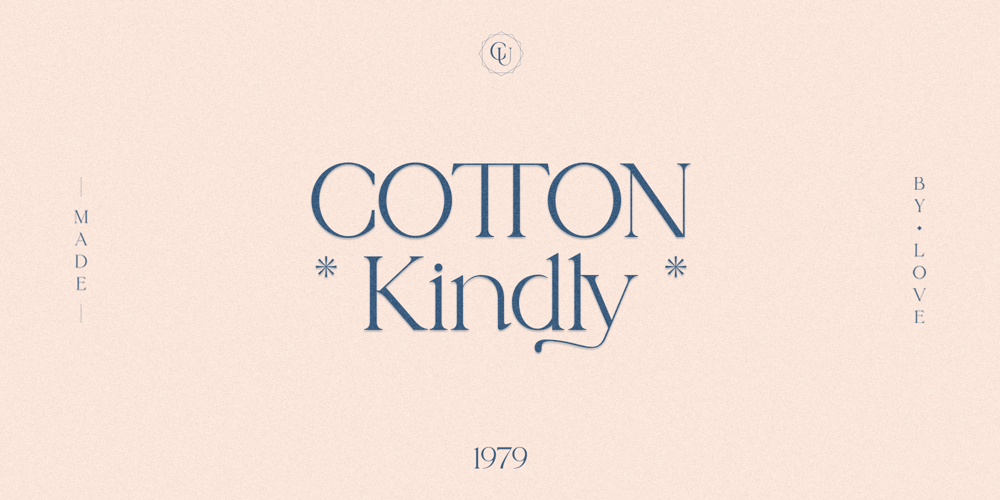
Cotton Kindly
Cotton Kindly Font Family was designed by Alfinu Zafir and published by Clevus. Cotton Kindly contains 1 styles and family package options. Proudly present Cotton Kindly Typeface, created by ClevUs, A serif modern and classic typeface that has own unique style & modern look. This typeface is perfect for an elegant & luxury logo, book or movie title design, fashion brand, magazine, clothes, lettering, quotes, and so much more.Product Content :Features : Uppercase and Lowercase Numerals Punctuations (OpenType Standard) Accents (Multilingual Characters) Ligatures and Alternative Style Stylistic Set Works on PC and Mac Simple installations Thank You.